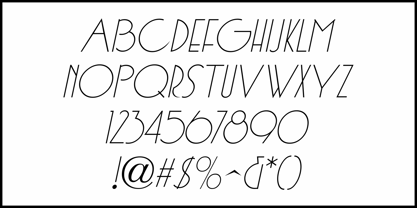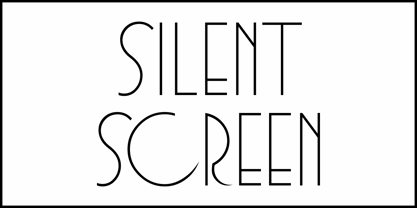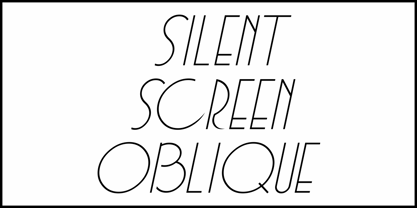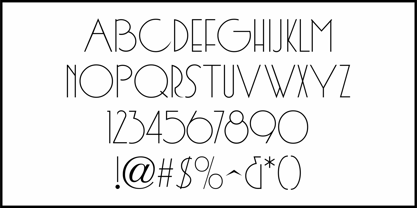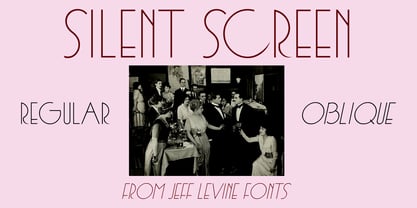
Silent Screen JNL
by Jeff Levine
An ad for Margery Wilson Productions in the October 6, 1918 issue of The Film Daily utilized thin, monoline lettering that had its design influences in both Art Nouveau and the emerging Art Deco movement.
This is now available as Silent Screen JNL in both regular and oblique versions.
Designers: Jeff Levine
Foundry: Jeff Levine